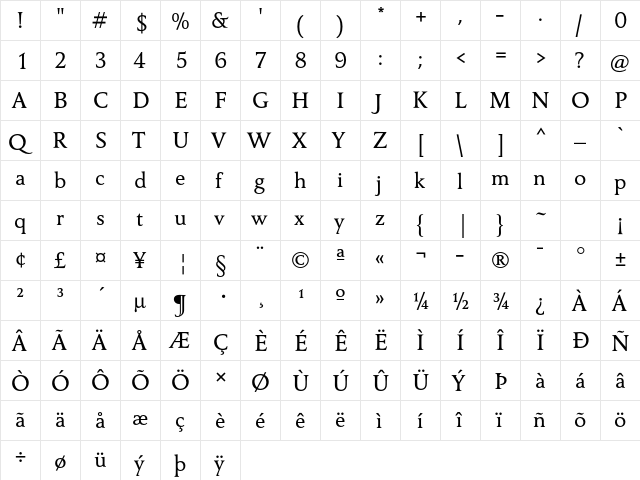
Carre Noir Std Medium
Design Context for Carre Noir Std Typeface
Carre Noir Std takes a measured approach to typography — its balanced proportions and neutral character make it a reliable workhorse for both digital and print work.